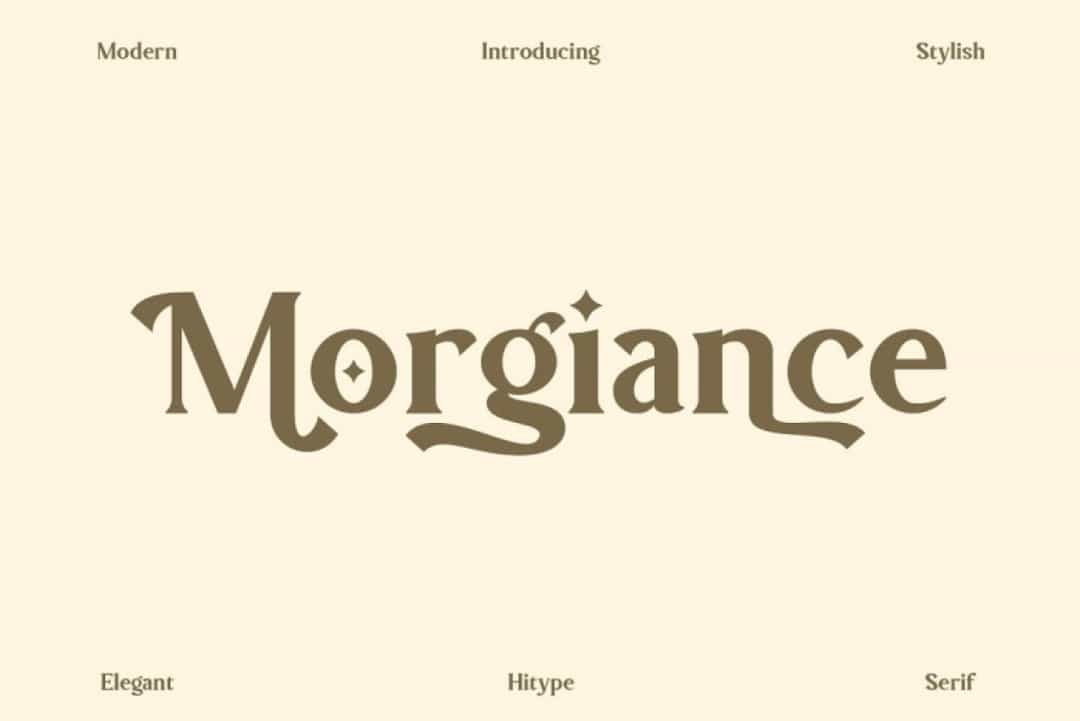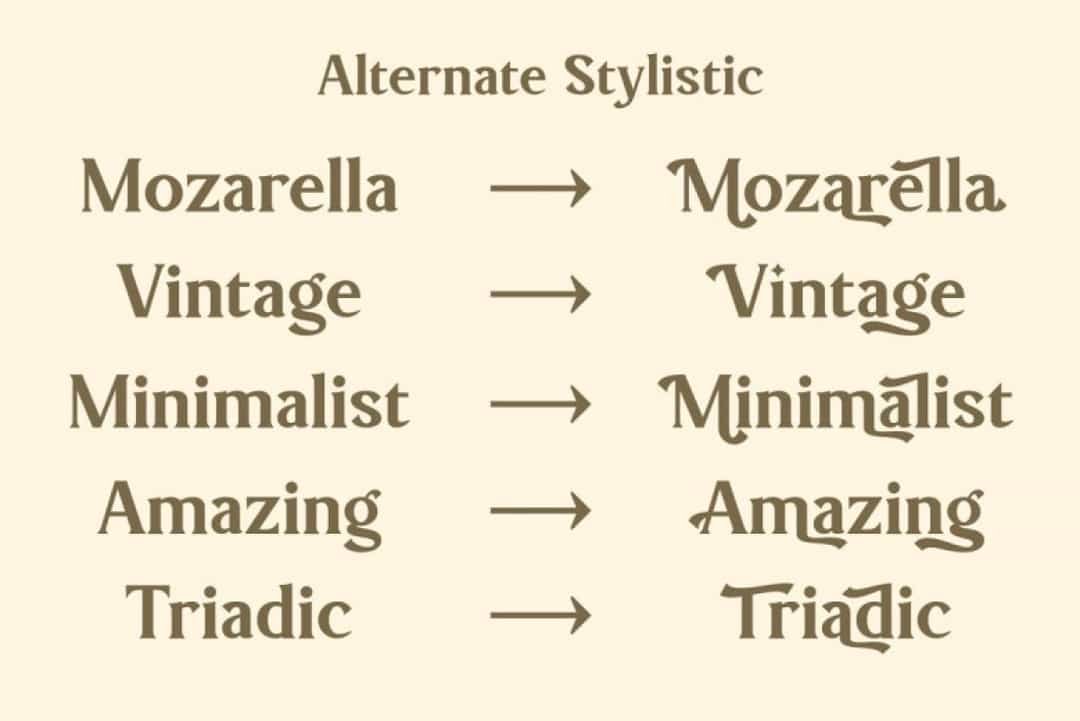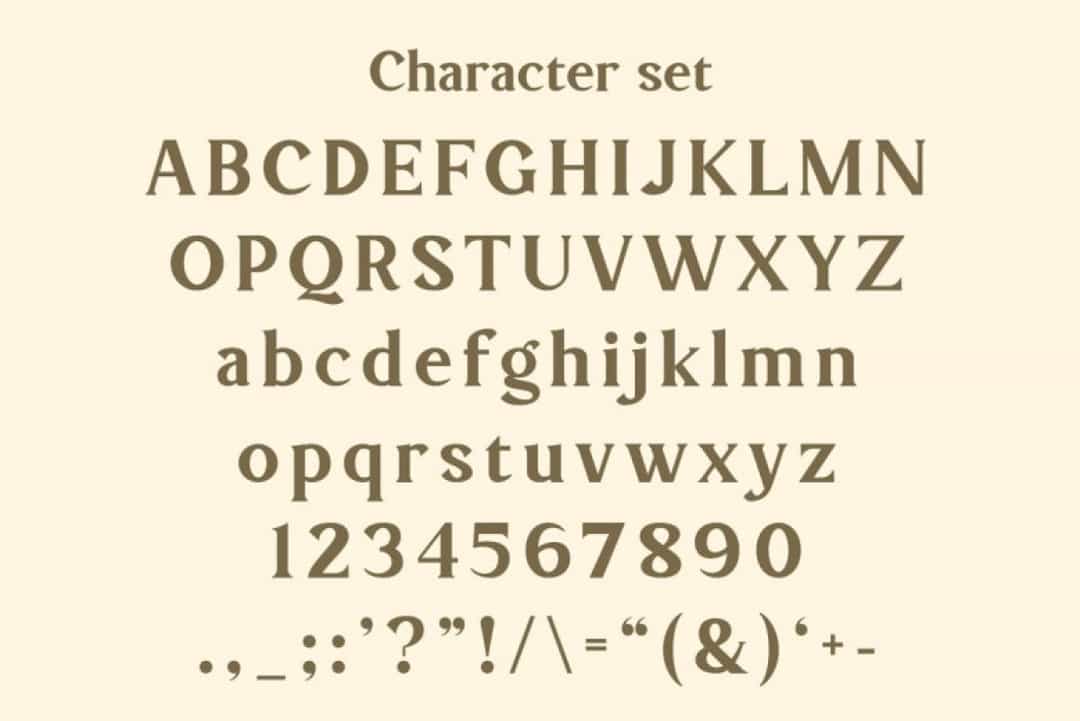
Morgiance is an exquisite serif typeface with a chic accent designed for luxurious projects with an emphasis on femininity. Perfect for posters, logos packaging and branding as well as invitations or notes this font creates modern and stylish designs.